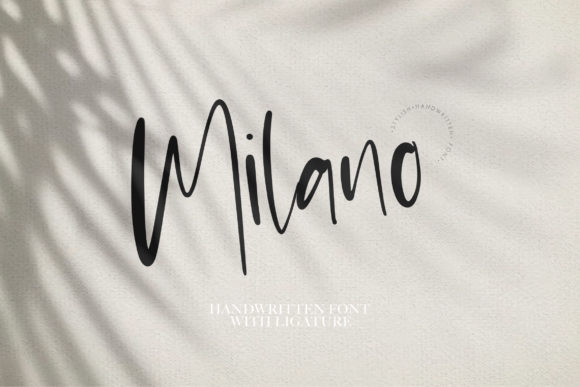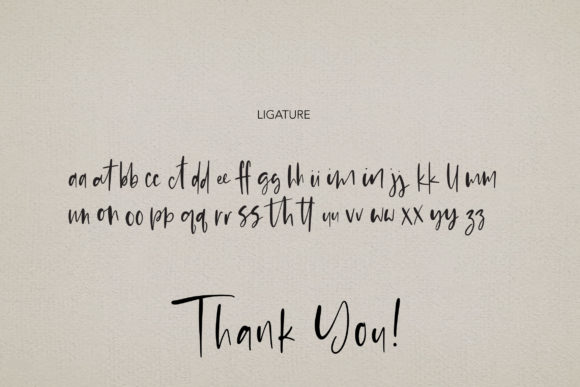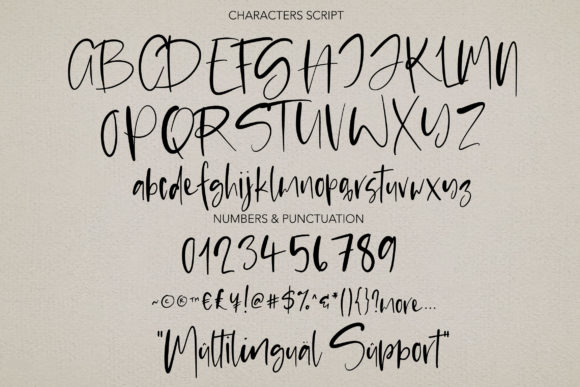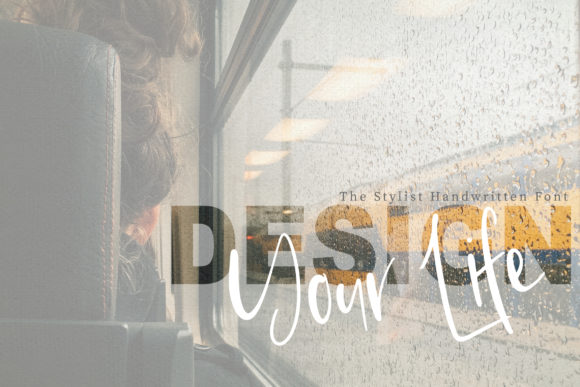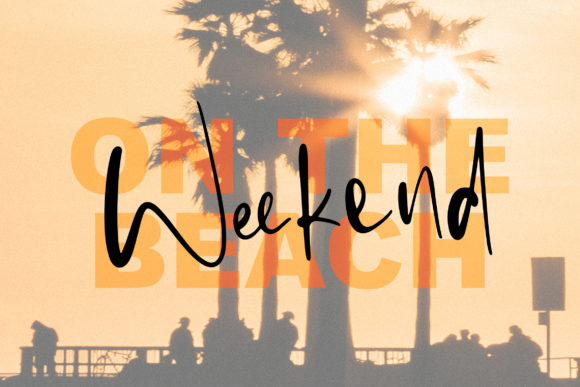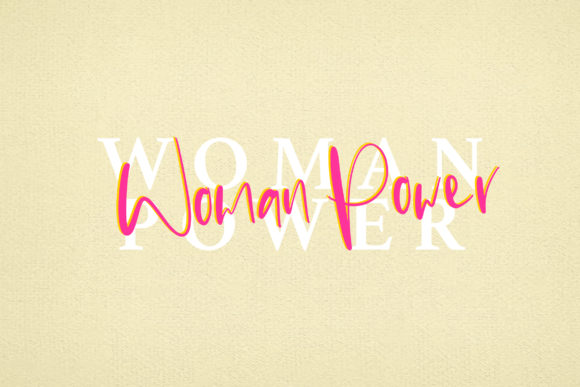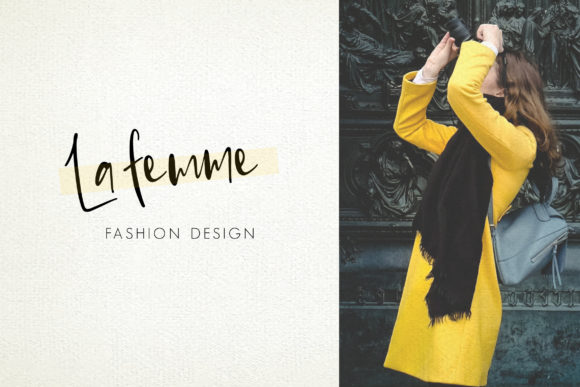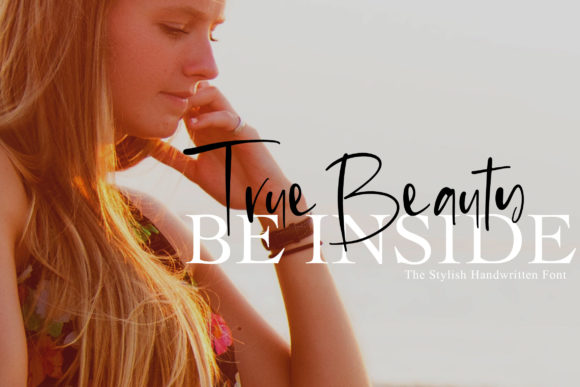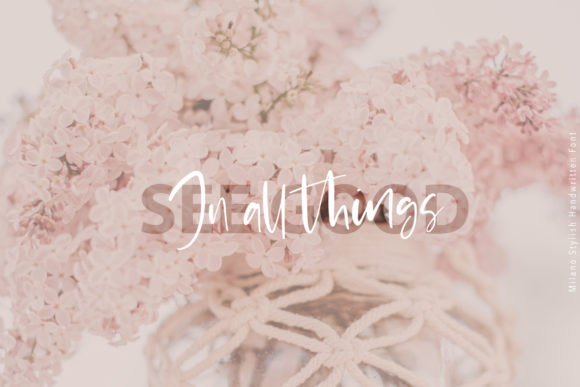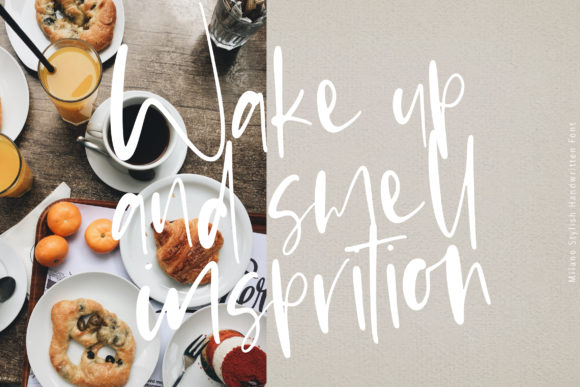
Milano Font
About Milano Font
Milano is a beautiful and warm handwritten font with an undeniably authentic charm. Use it to turn any design project into a stand out!